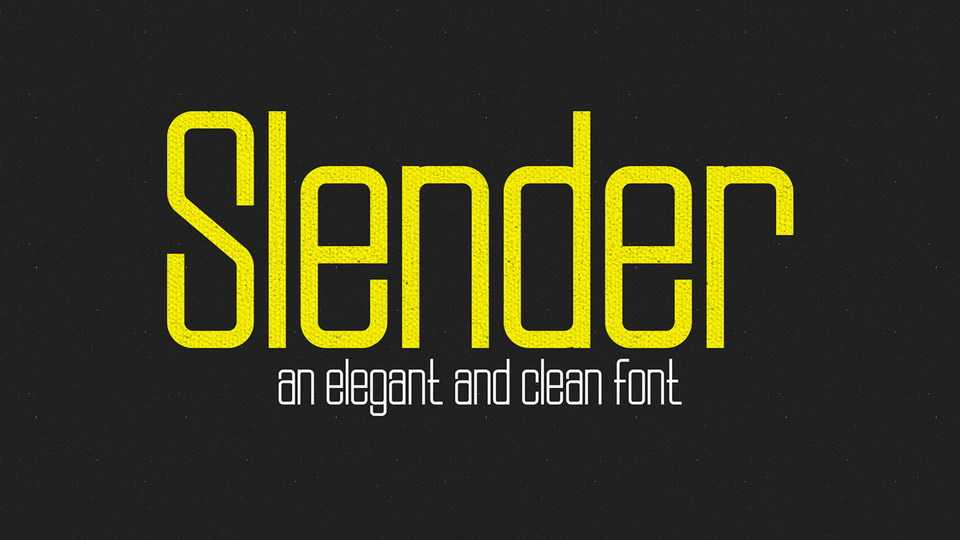
Download Slender typpeface, an elegant and clean geometric font family in four weights. Slender is a modern typeface for books, headlines, logos, title, print, magazine.
Designer: Dmitry Baranov